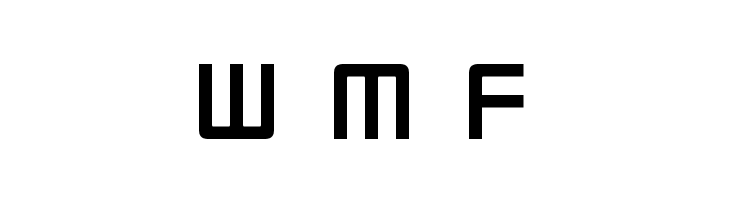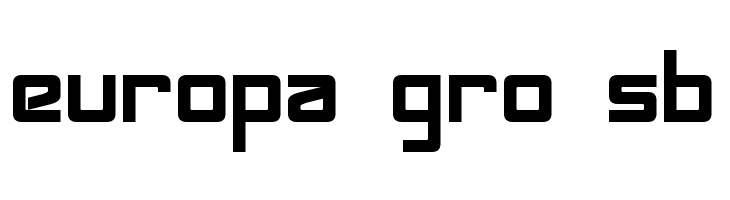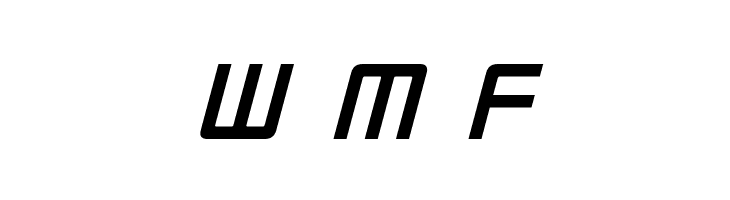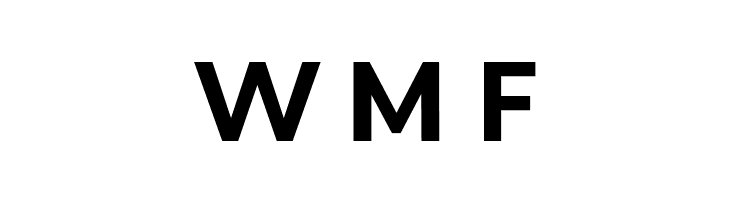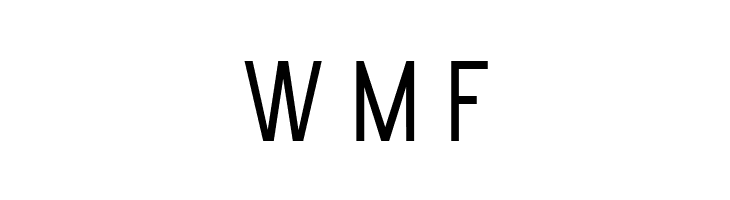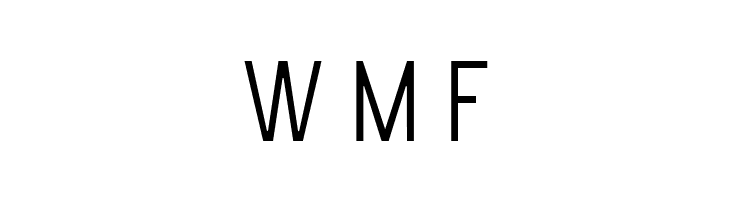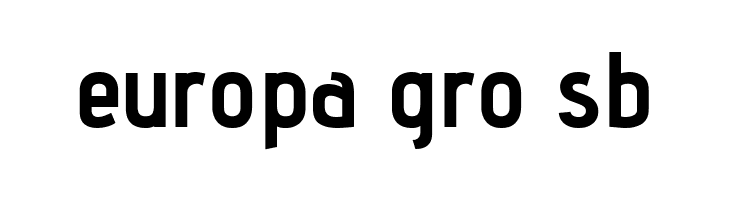
A bold, angular font with geometric shapes and a dynamic style.
A bold, modern sans-serif font with clean, geometric lines.
A bold, modern sans-serif font with geometric influences and high legibility.
A bold, modern sans-serif font with clean lines and a slightly condensed style.
A bold, geometric font with a modern and cohesive design.
A bold, italicized font with a modern, adventurous style and geometric structure.